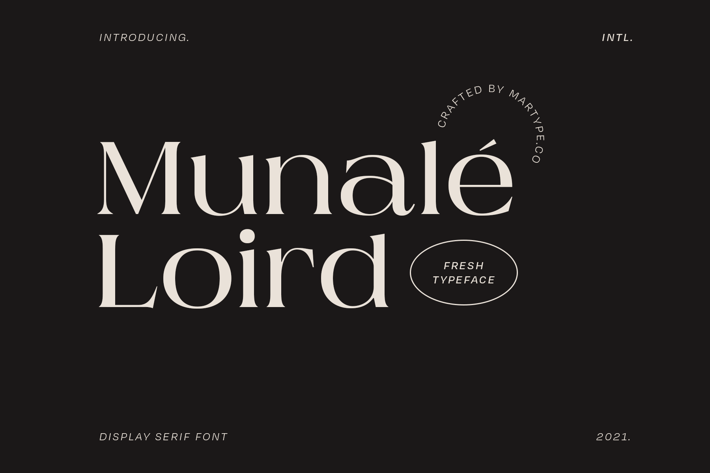
Munale Loird Display Font
Introducing Munale Loird serif display, a brand new font with minimalist satyle and chic feel, lso made with love to make it more useable and stylish. This font also suitable for Branding Design, Logotype, Wedding Invitation, Headline, Posters, Business Card and etc.